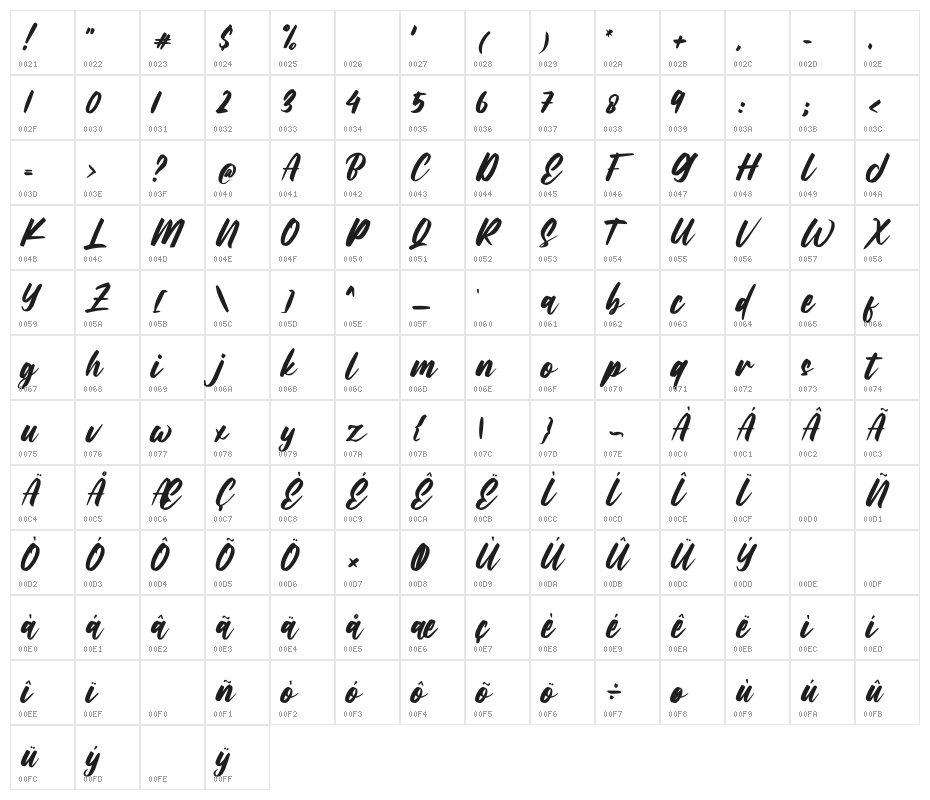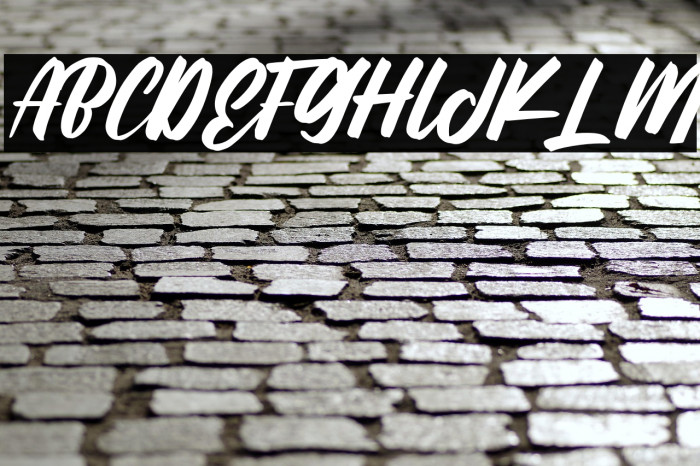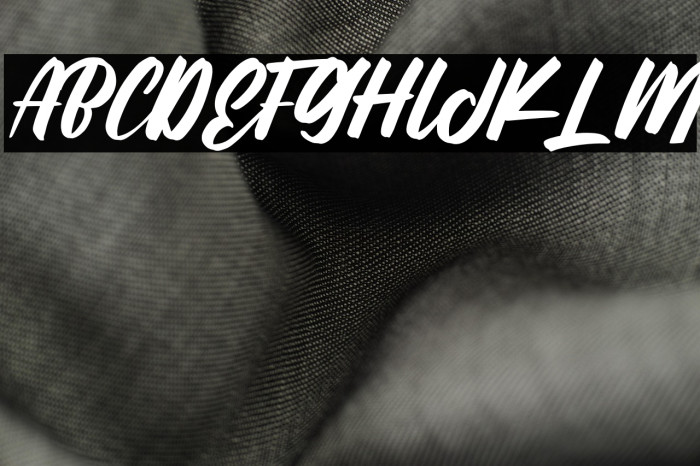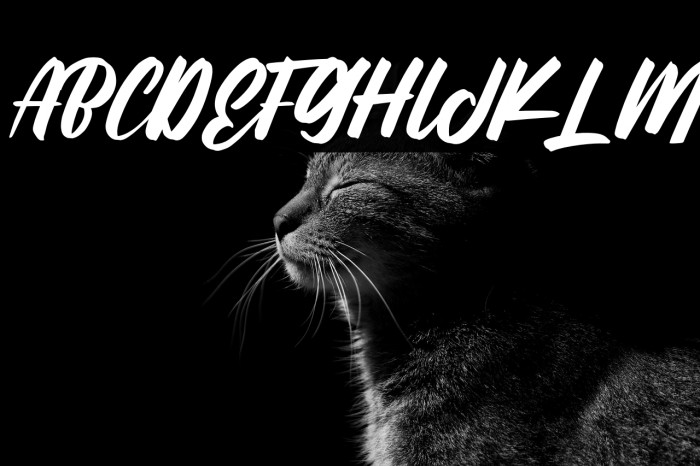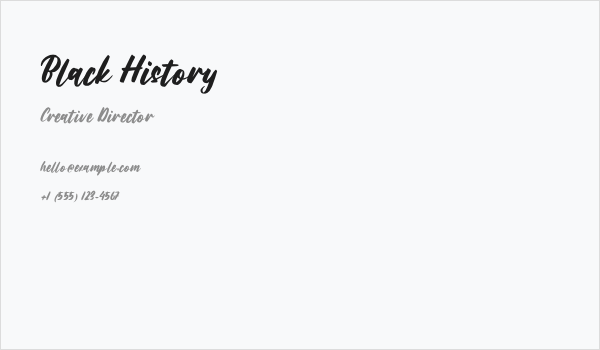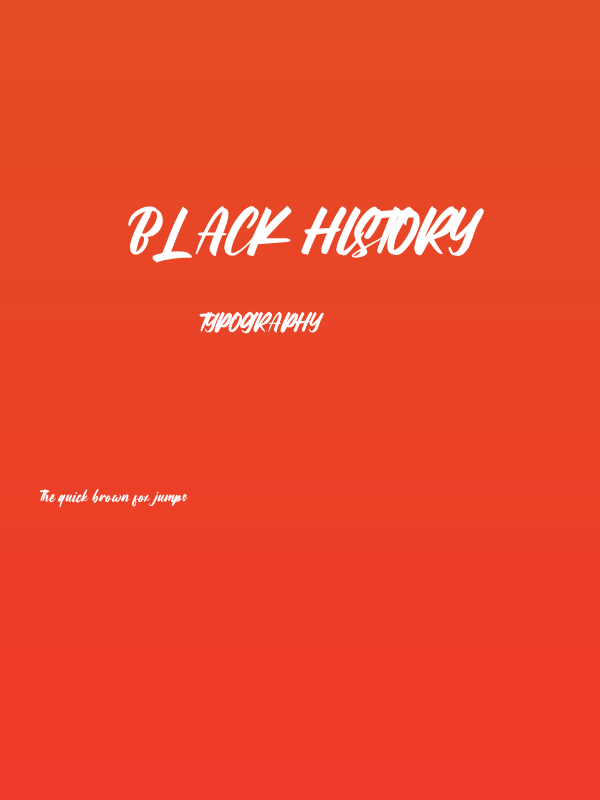
Black History Font
Black History Description
This font features a bold and expressive script style with a hand-drawn appearance. The letters are connected in a fluid manner, giving it a dynamic and energetic feel. The strokes are thick and consistent, creating a strong visual impact. The uppercase and lowercase letters maintain a cohesive style, with slight variations that add character. Numbers and special characters are designed to match the overall aesthetic, ensuring a harmonious look across all elements. This font is ideal for projects that require a personal touch or a creative flair.